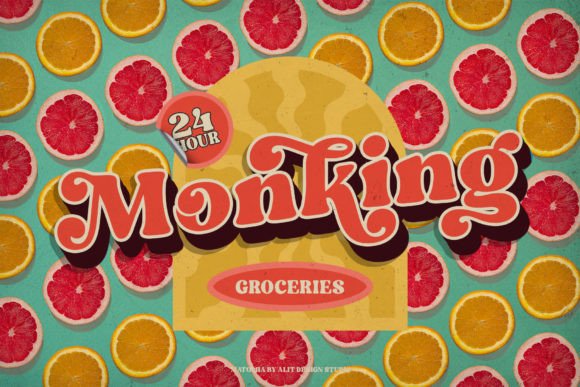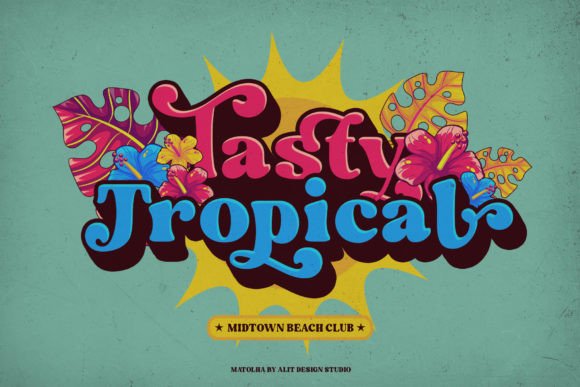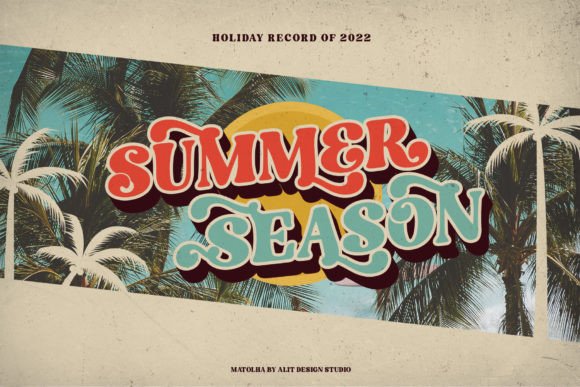
Introduction to Matolha Font
The Matolha Typeface is inspired by stylish designs from the 80s to the 90s.
At that time the font style like β€œThe Matolha Typeface” had a firm and trendy impression The Matolha Typeface has a wide selection of alternative characters and swashes that make it easy to create bold retro-style designs.
Key Features of Matolha Font
Why Choose Matolha Font?
Matolha Font offers exceptional quality and versatility, making it a valuable addition to your design toolkit. Whether you’re creating for personal projects or commercial use, Matolha Font delivers professional results.